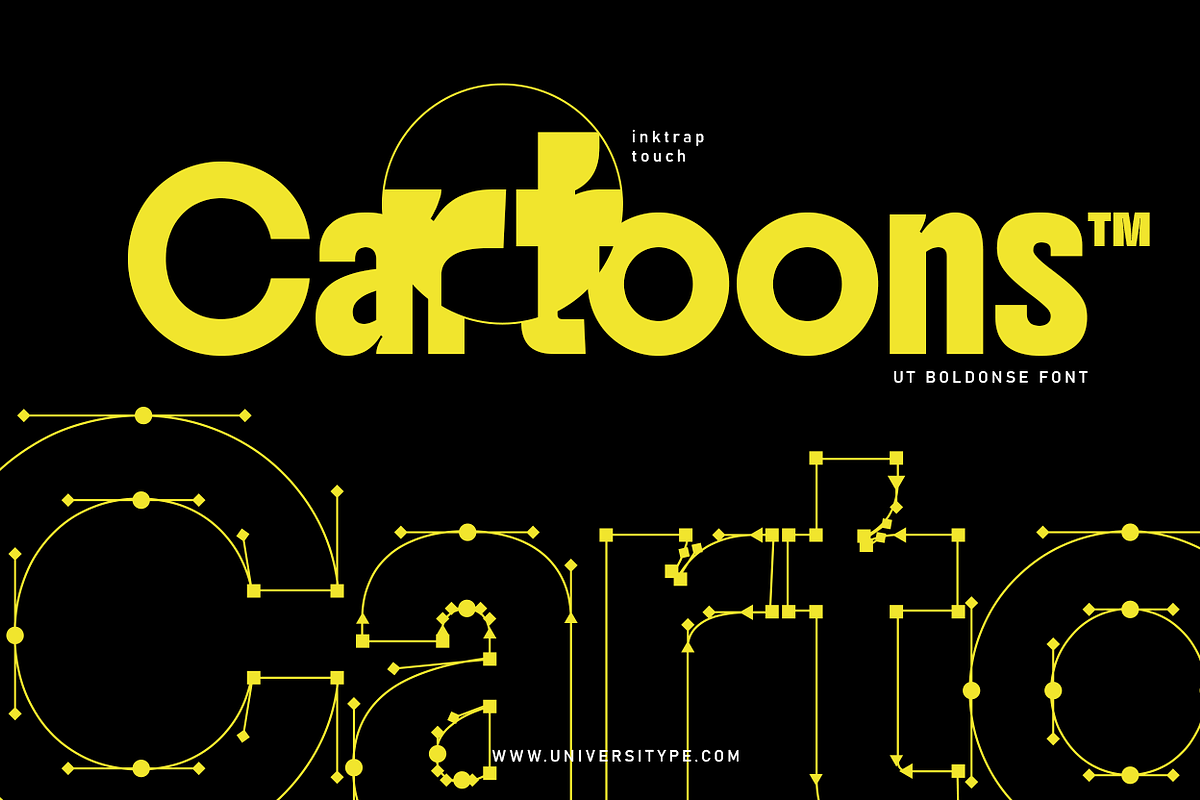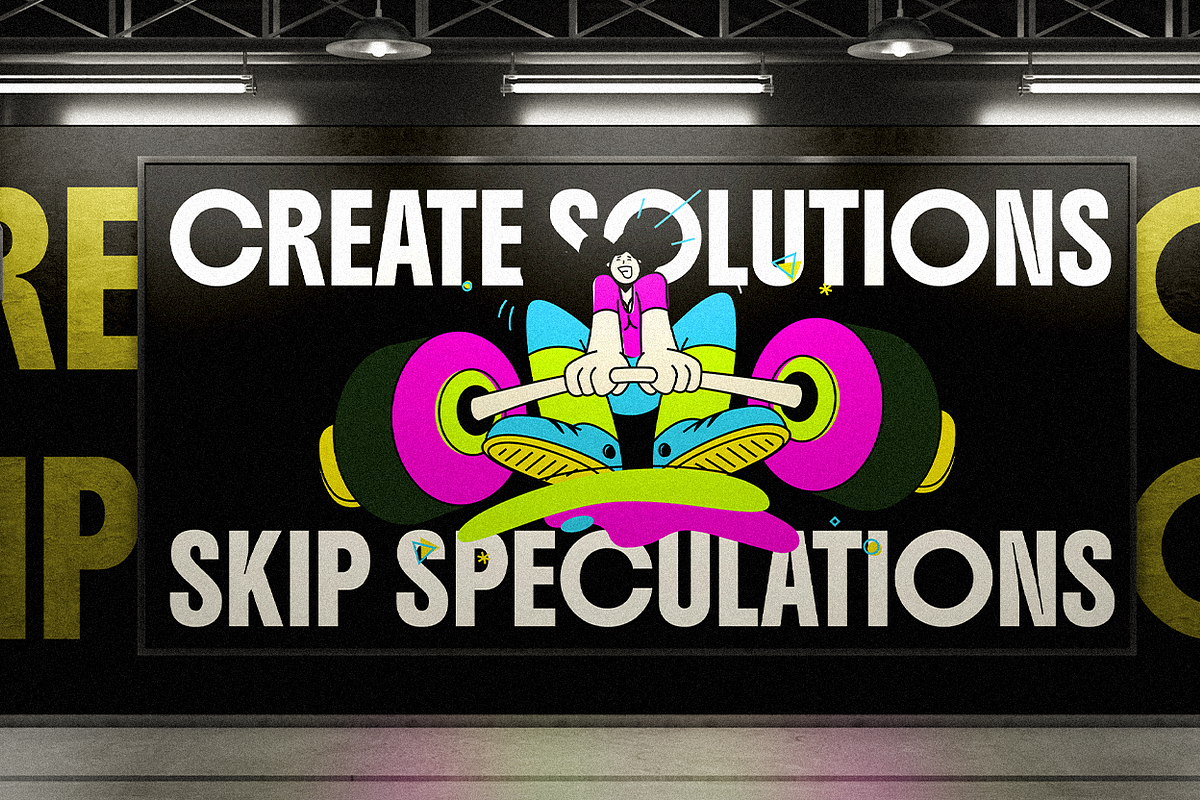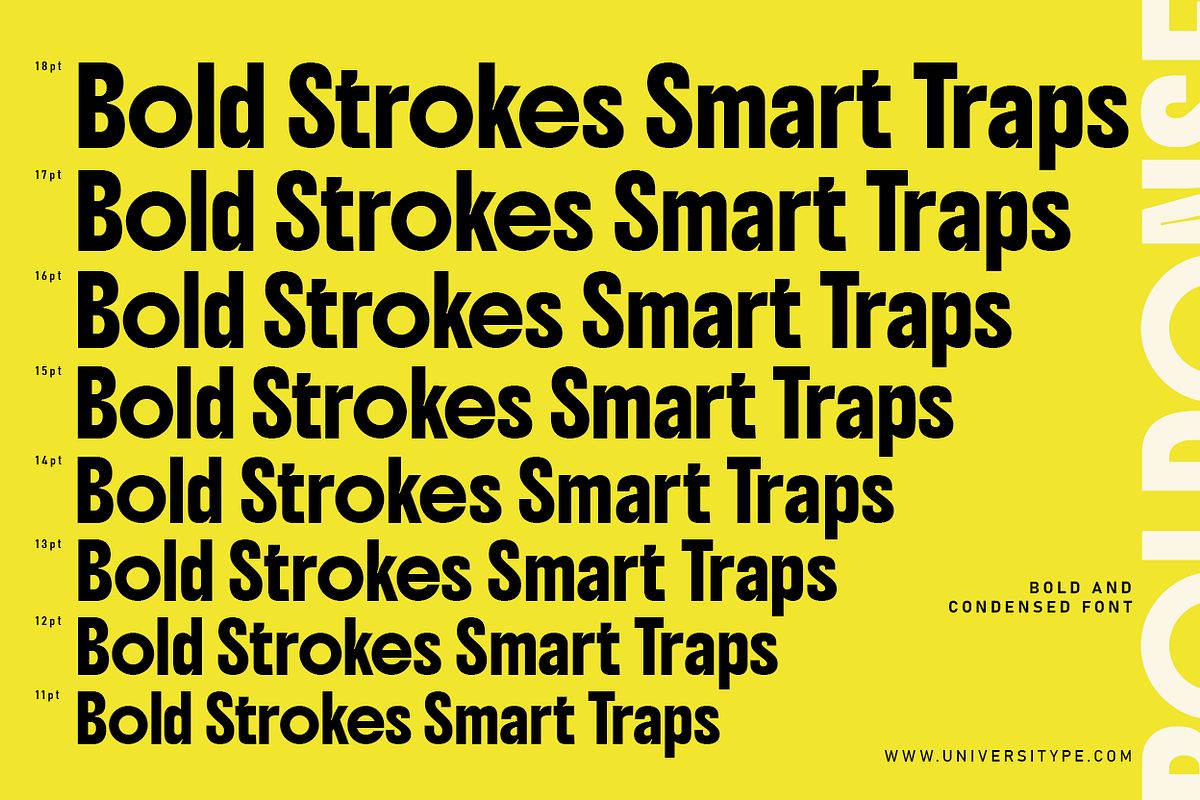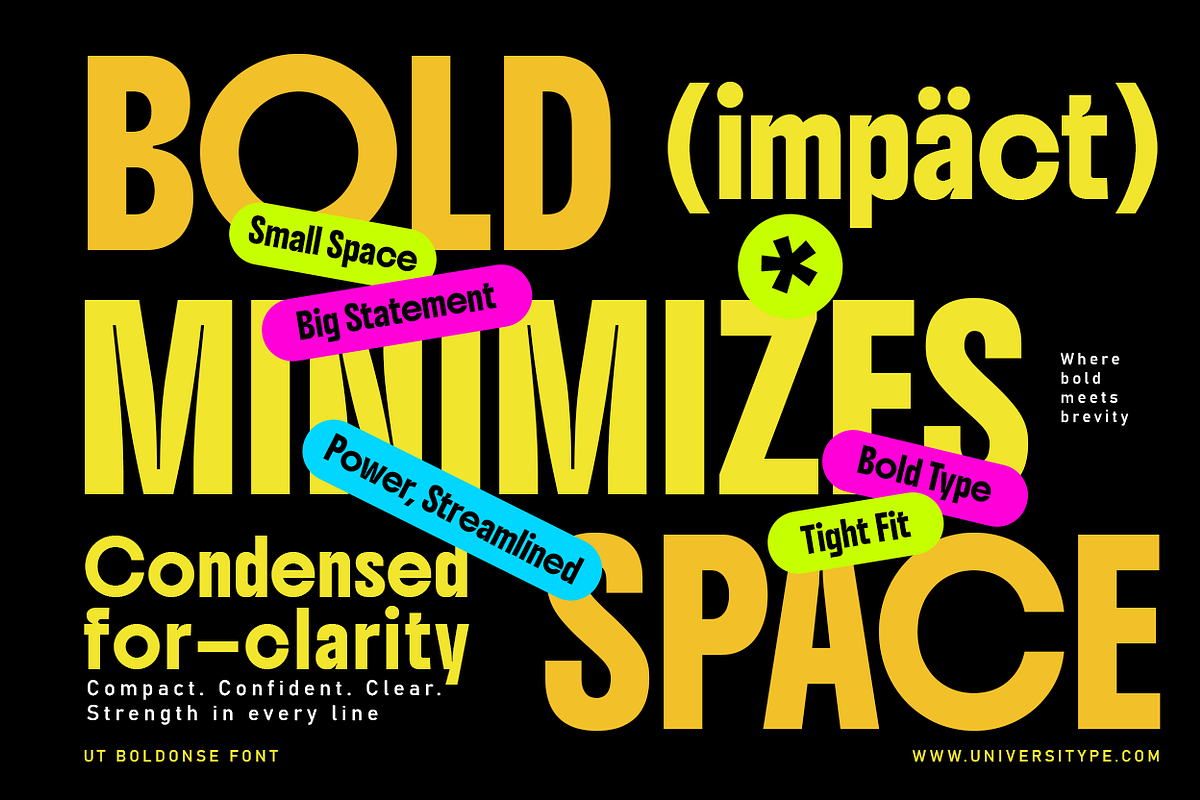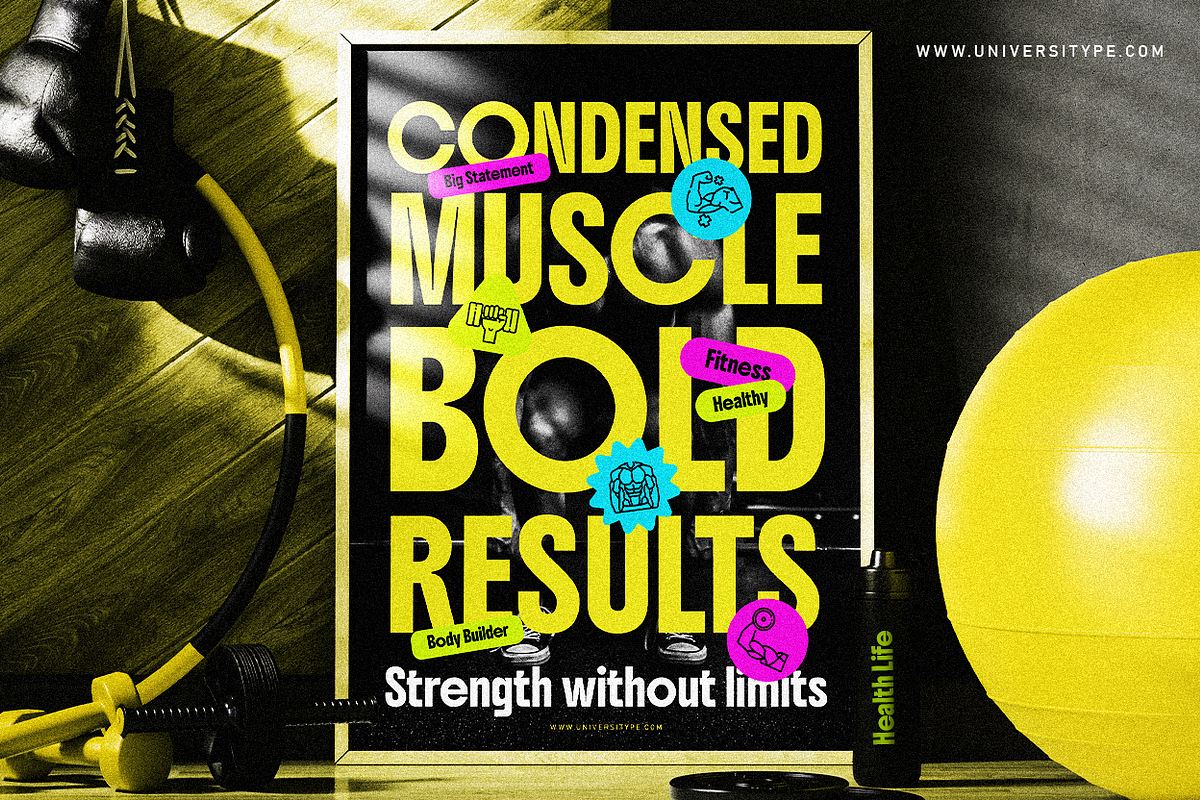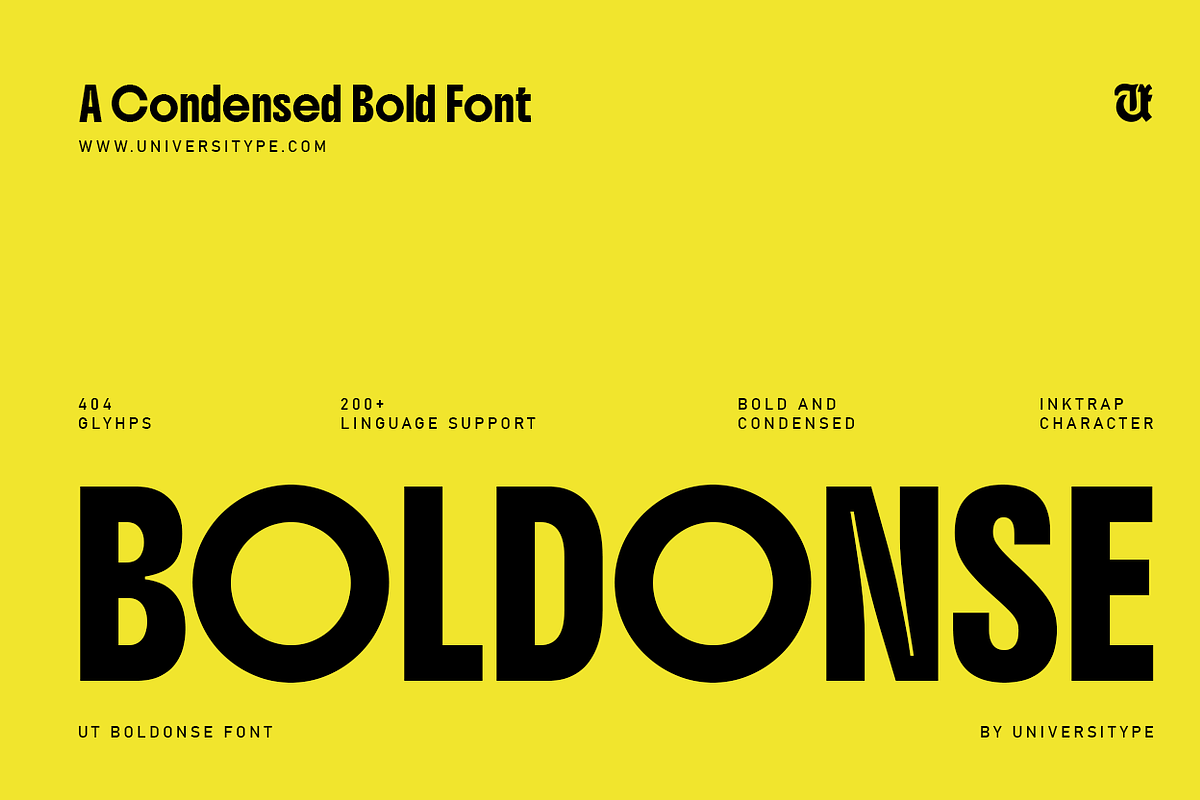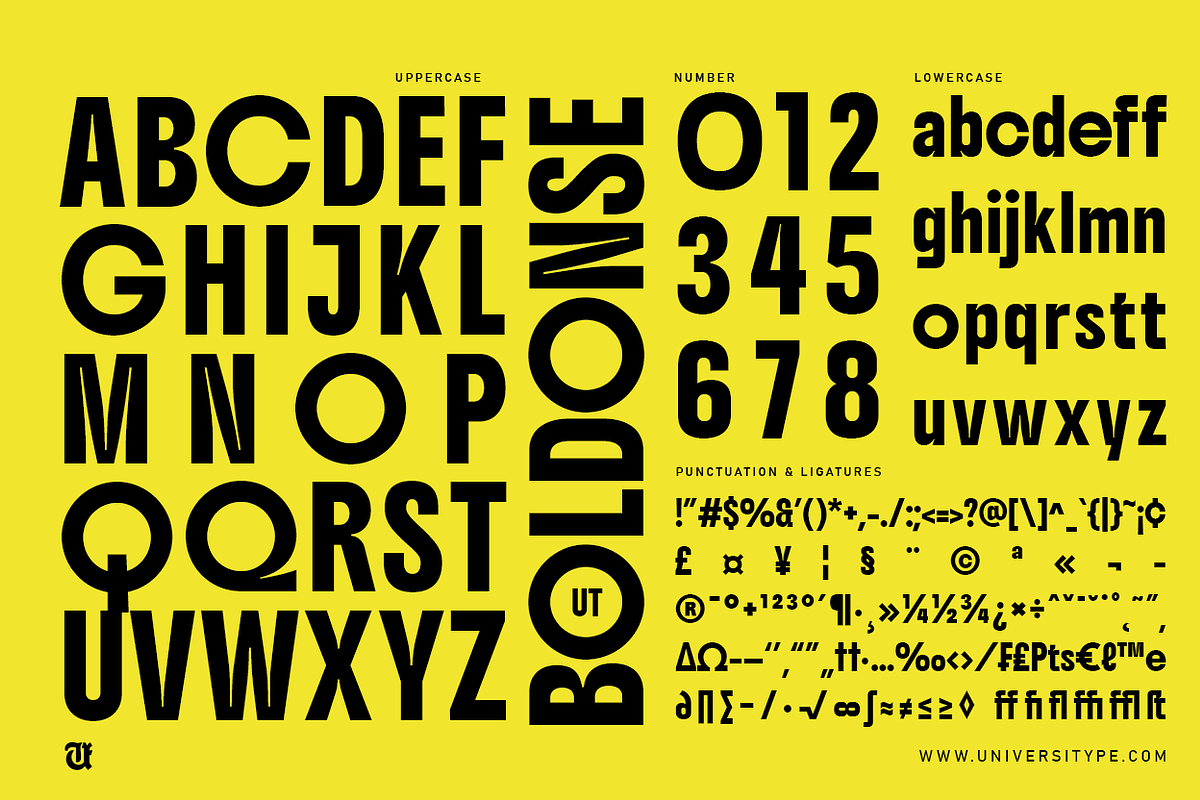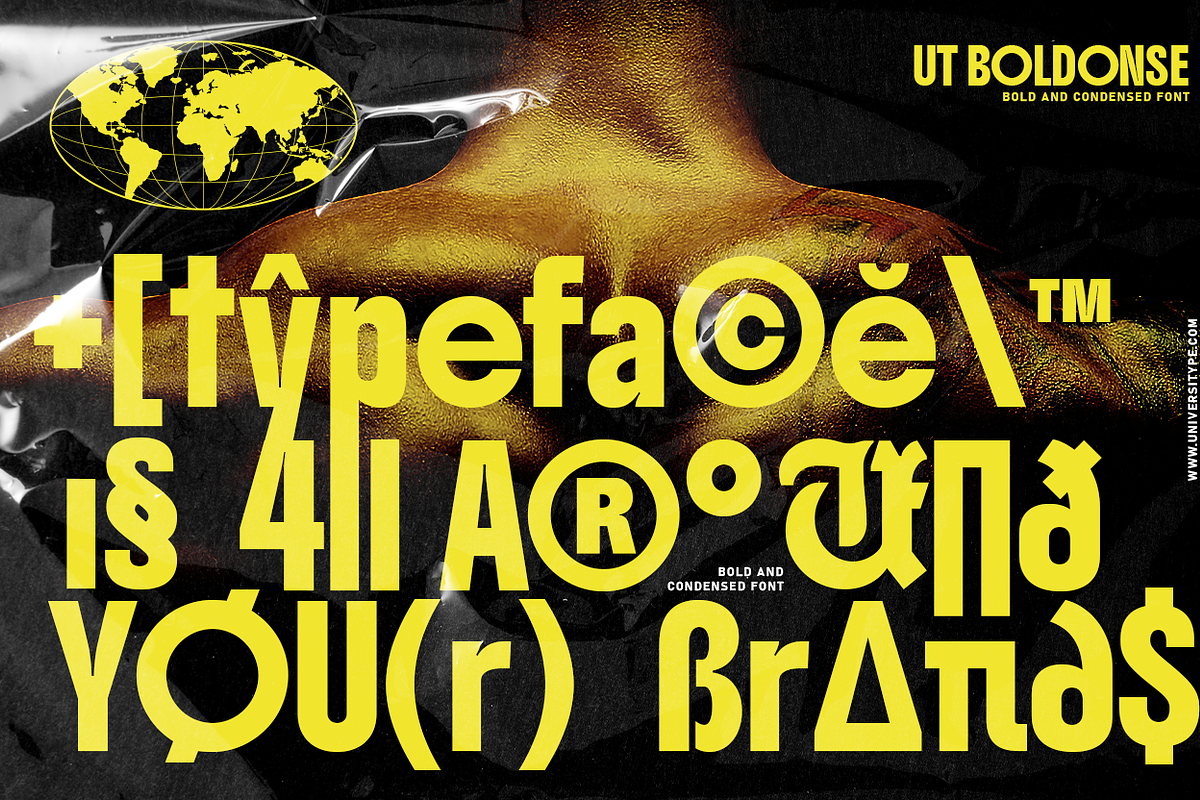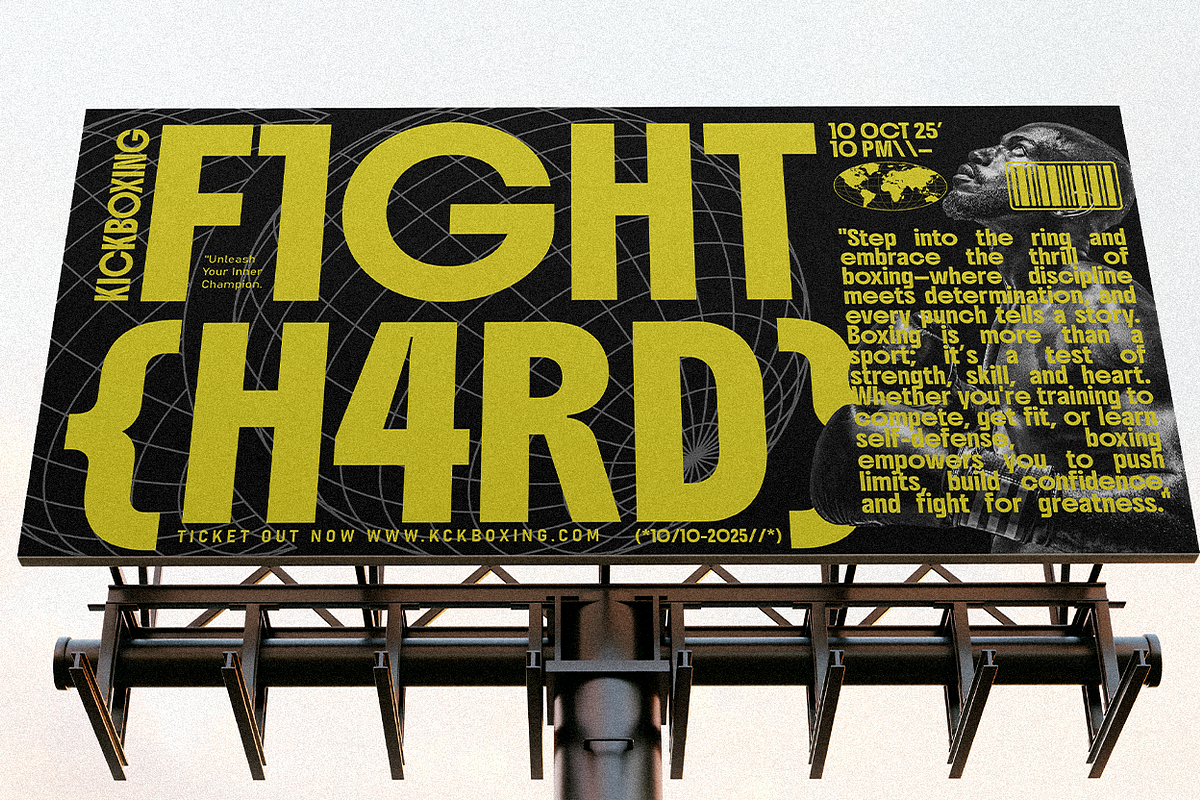
UT Boldonse - A Bold Condensed Font
UT Boldonse: A Bold Typeface with a Fun Twist When it comes to making a big impact in design, UT Boldonse is here to help. This bold, condensed sans serif font is packed with personality and strength. It’s more than just a font—it’s the tool you need to make your designs stand out. Let’s explore why UT Boldonse is the perfect choice for your creative projects.
Why You Need UT Boldonse Designers often need a font that’s eye-catching but also unique. Many fonts can feel boring or too simple. UT Boldonse fixes that problem. Its bold, condensed style grabs attention, and its fun inktrap details give it a playful personality. With UT Boldonse, your designs will always stand out.
What Makes UT Boldonse Special? UT Boldonse isn’t like other bold fonts. It’s designed to make a statement while being easy to read. Its condensed shape works great in small spaces, and the inktrap details add both style and function.
Here’s what makes UT Boldonse awesome:
Bold and Condensed Style: Great for headlines, logos, or anywhere you need to make an impression. Fun Inktrap Details: These cool features make the font more readable and give it a unique look. Lots of Characters: With 404 glyphs, UT Boldonse works in over 200 languages. Clear and Bold: Even though it’s condensed, the letters are still easy to read.
Where You Can Use UT Boldonse is super flexible and works in many different designs. Here are some ideas:
Logos and Branding: Make brands unforgettable with UT Boldonse’s strong and fun style. Posters and Headlines: Grab attention with bold, clear letters. Print and Digital: Whether for websites or printed materials, UT Boldonse looks amazing everywhere.
Why Designers Love UT Boldonse is more than a font—it’s a way to take your designs to the next level. Here’s why it’s a favorite among designers:
Fits Any Style: Whether you’re designing for a tech company or a creative project, UT Boldonse works perfectly. Easy to Read: Even in tight spaces, the font stays clear and sharp. Unique Look: The inktrap details make UT Boldonse different from other condensed fonts.